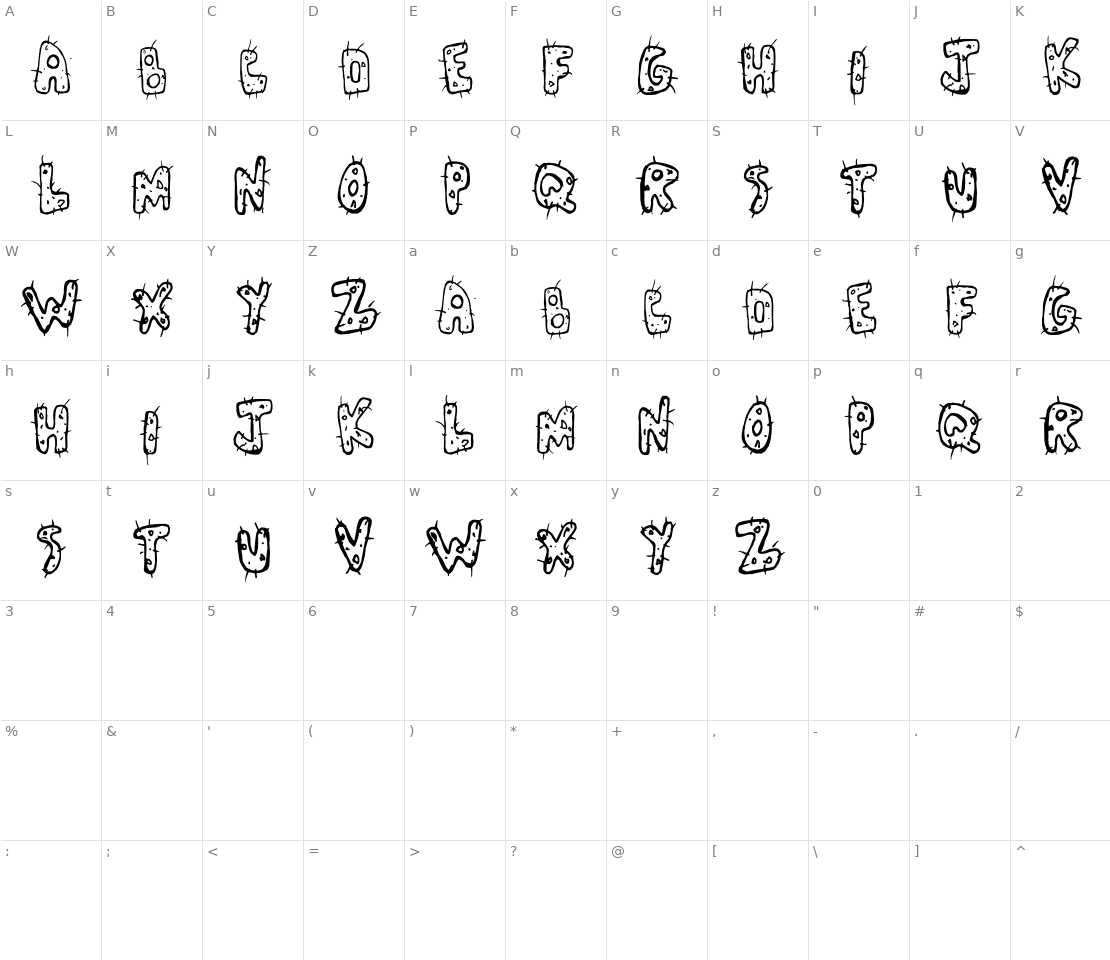
Cactus Love
Cactus Love is a quirky novelty face from Spork Thug Typography where the letterforms sprout thorns and dotted textures that make each character look like it grew in the desert. The hand-drawn quality keeps things playful and loose rather than overly polished, giving it real personality for headlines, posters, packaging, or anything with a botanical or southwestern theme.